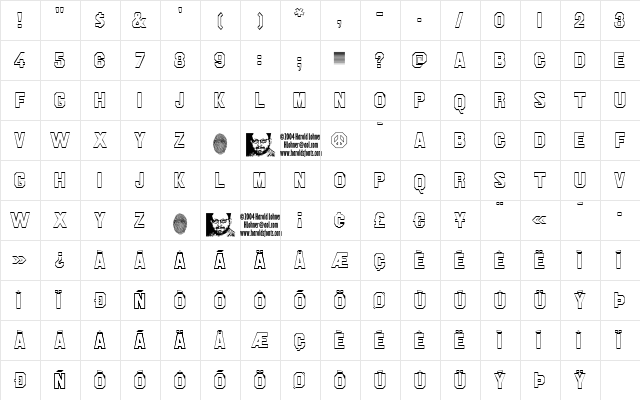
Jim DandyOutlines Regular
Design Context for Jim DandyOutlines Typeface
Jim DandyOutlines is built around its visual character rather than neutral utility — its distinctive forms are designed to make an impression at display sizes.
Font Pairing: Pair with a clean neutral sans-serif for body copy to let Jim DandyOutlines's character lead without overwhelming the composition.
Pro Tip: Use Jim DandyOutlines exclusively at display sizes — it was designed to be seen, not read at length. Let a neutral companion handle body copy.